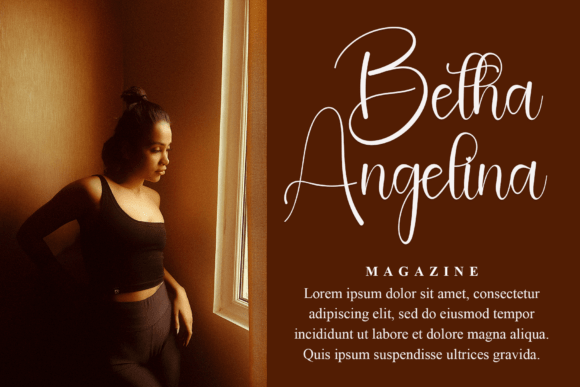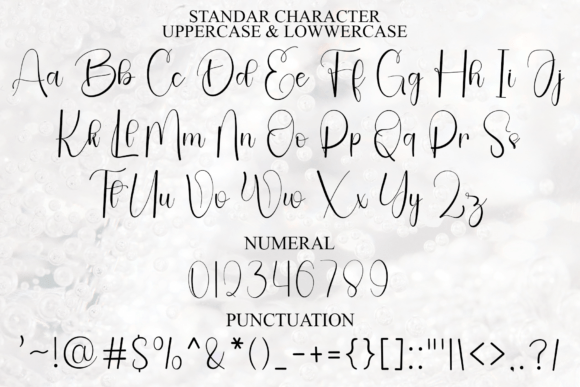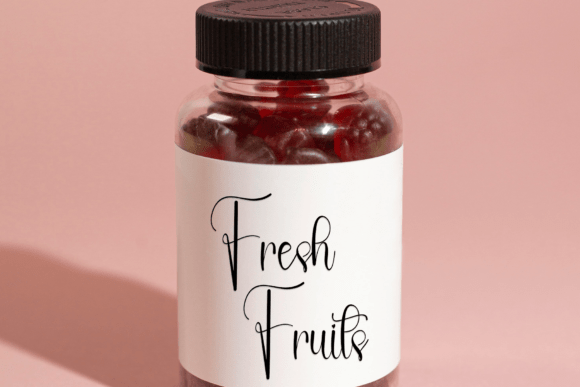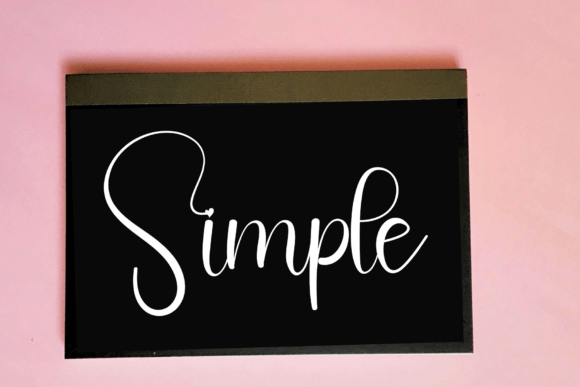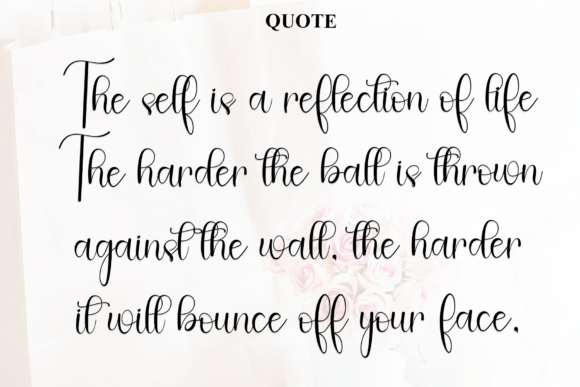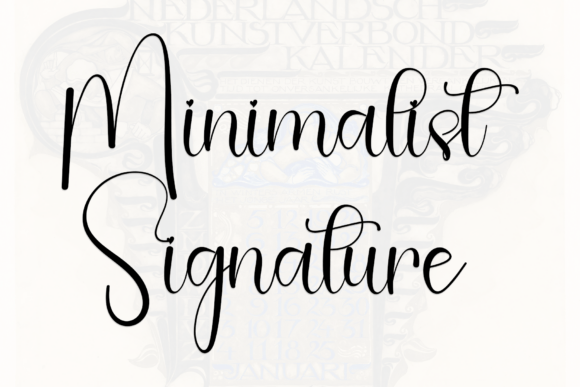
Introducing Beautiful Sunshine Font: Add a Touch of Holiday Magic to Your Designs
Are you looking for a font that embodies the spirit of the holiday season? Do you want to add a touch of whimsy and enchantment to your designs? Look no further than Beautiful Sunshine Font! This festive and merry typeface is perfect for greeting cards, gift tags, and holiday-themed projects. With its decorative elements and nostalgic ambiance, Beautiful Sunshine Font is sure to bring a smile to your face and a sparkle to your designs.
The Perfect Font for Holiday Designs
Beautiful Sunshine Font is a decorative typeface that captures the essence of the holiday season. Its whimsical flair and enchanting elements make it perfect for a variety of design projects, including:
- Greeting cards: Add a personal touch to your holiday cards with Beautiful Sunshine Font.
- Gift tags: Make your gifts stand out with beautifully designed tags featuring this festive font.
- Holiday-themed projects: From invitations to party decorations, Beautiful Sunshine Font is the perfect choice for any holiday project.
What Makes Beautiful Sunshine Font Special?
Beautiful Sunshine Font is more than just a typeface – it’s an experience. With its PUA encoding, you can access all of the amazing glyphs and ligatures with ease. This means you can create beautiful, intricate designs without the hassle of complicated font management.
Some of the key features of Beautiful Sunshine Font include:
- Decorative elements: Add a touch of magic to your designs with the font’s intricate decorations.
- Whimsical flair: Beautiful Sunshine Font has a playful, nostalgic feel that’s perfect for holiday designs.
- PUA encoding: Easily access all of the font’s glyphs and ligatures for effortless design.
Why Choose Beautiful Sunshine Font?
With so many fonts to choose from, why should you choose Beautiful Sunshine Font? Here are just a few reasons:
- Unique and eye-catching: This font is sure to stand out in any design.
- Easy to use: With PUA encoding, you can easily access all of the font’s features.
- Versatile: Beautiful Sunshine Font is perfect for a variety of design projects, from greeting cards to party decorations.
Tips for Using Beautiful Sunshine Font
Here are a few tips for getting the most out of Beautiful Sunshine Font:
- Experiment with different sizes and colors to find the perfect look for your design.
- Pair Beautiful Sunshine Font with other fonts for a unique and eye-catching combination.
- Don’t be afraid to get creative and try new things – this font is perfect for designers who like to push the boundaries of typography.
Beautiful Sunshine Font is the perfect choice for designers and crafters looking to add a touch of holiday magic to their designs. With its decorative elements, whimsical flair, and PUA encoding, this font is sure to bring a smile to your face and a sparkle to your designs. So why wait? Download Beautiful Sunshine Font today and let your typography shine with the magic of the holiday season!
- Festive and merry typeface
- Decorative elements and whimsical flair
- Perfect for greeting cards, gift tags, and holiday-themed projects
- Unique and eye-catching design
- Easy to use and versatile
Whether you’re a designer, crafter, or simply someone who loves the holiday season, Beautiful Sunshine Font is the perfect choice for adding a touch of magic to your designs. So go ahead, get creative, and let your typography shine with the beauty of Beautiful Sunshine Font!